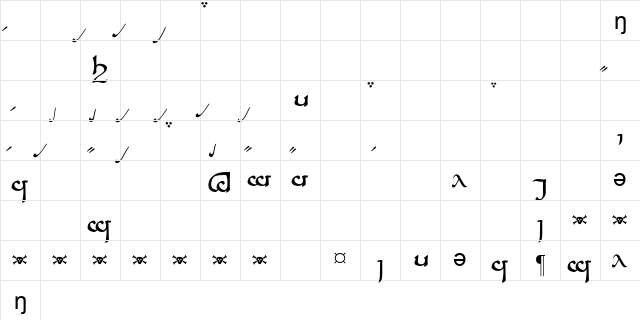
Tengwar Sindarin-A Regular
Design Context for Tengwar Sindarin-A Typeface
Tengwar Sindarin-A is a composed and adaptable typeface that performs quietly and consistently across a wide range of design contexts.